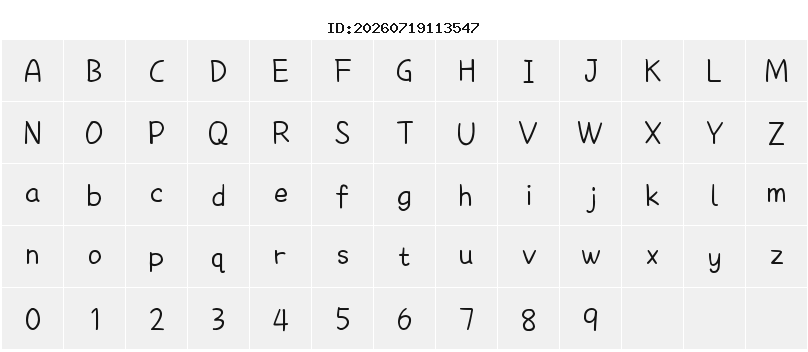
也字工厂幼稚园体 Preview
• Font Name: 也字工厂幼稚园体
• Full Font Name: 也字工厂幼稚园体
• Manufacturer: 也字工厂
About 也字工厂幼稚园体.ttf
也字工厂幼稚园体.ttf is a modern, elegant sans-serif font designed for ultimate readability and visual harmony. Perfect for branding, headlines, web design, and print materials.